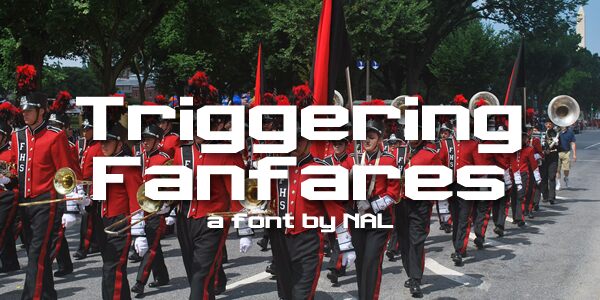
Triggering Fanfares by NAL of FontStruct is a free futuristic display font with a hard-edged architectural build. Its broad capitals combine heavy strokes with sharp notches and geometric cutouts. Several letters resemble machine housings or industrial signage.
For game title cards and electronic music posters, its compact mechanical shapes supply a tech setting, yet the same severe geometry also suits sportswear branding and event merchandise. Across these uses, the angular joins and enclosed shapes turn words into emblem-like graphics.
Triggering Fanfares
NAL